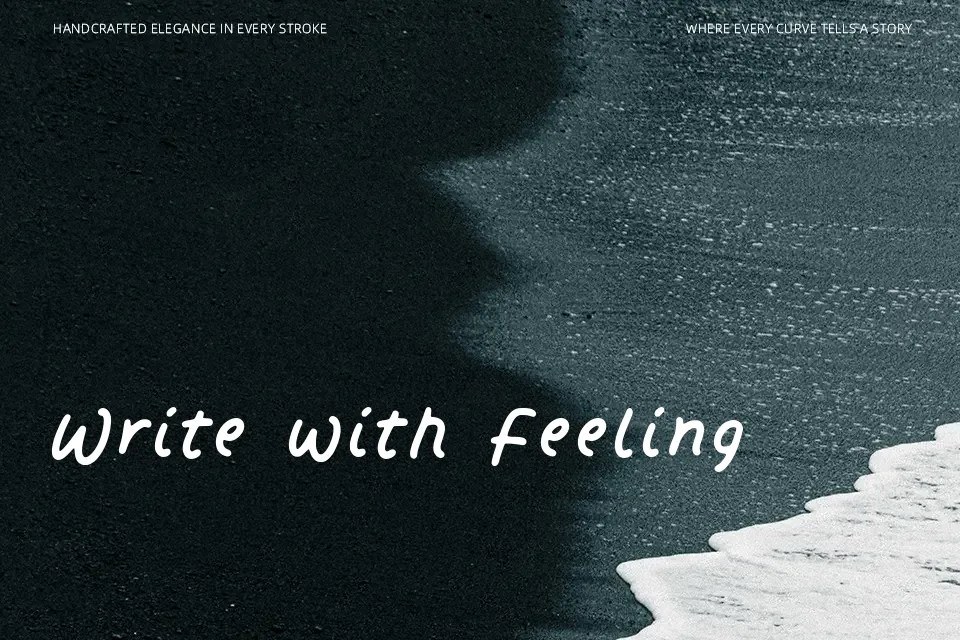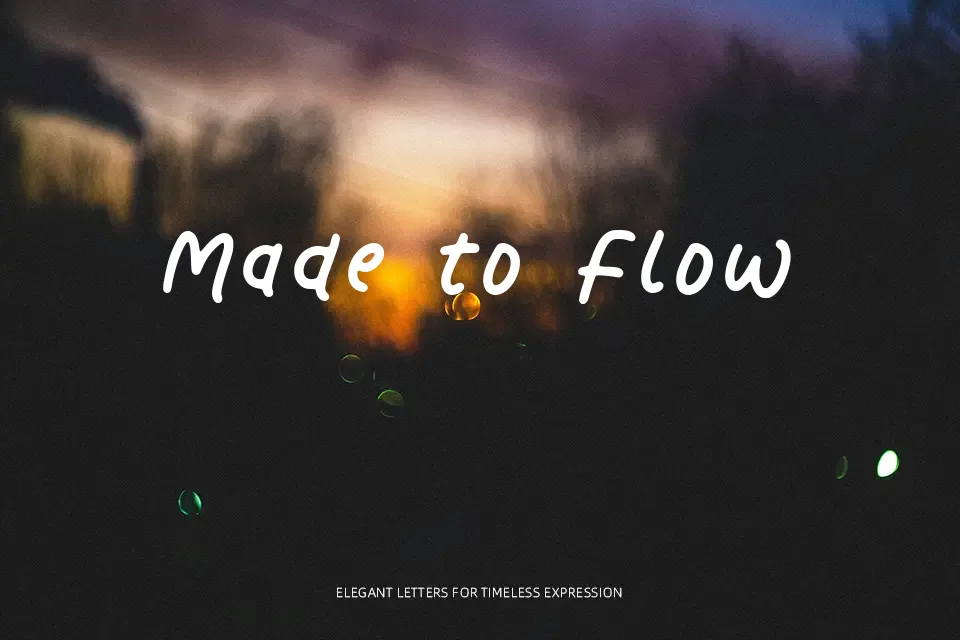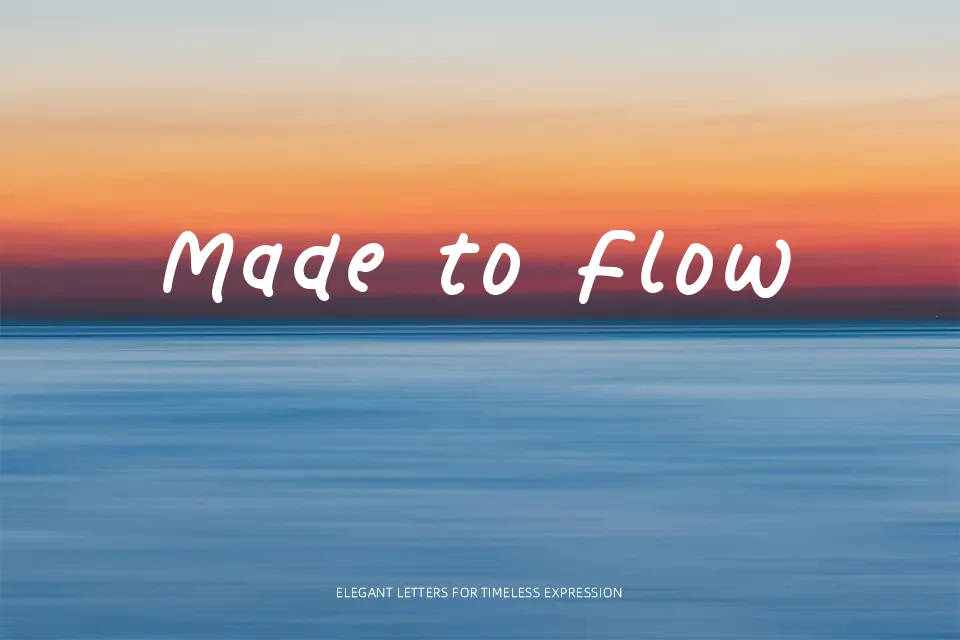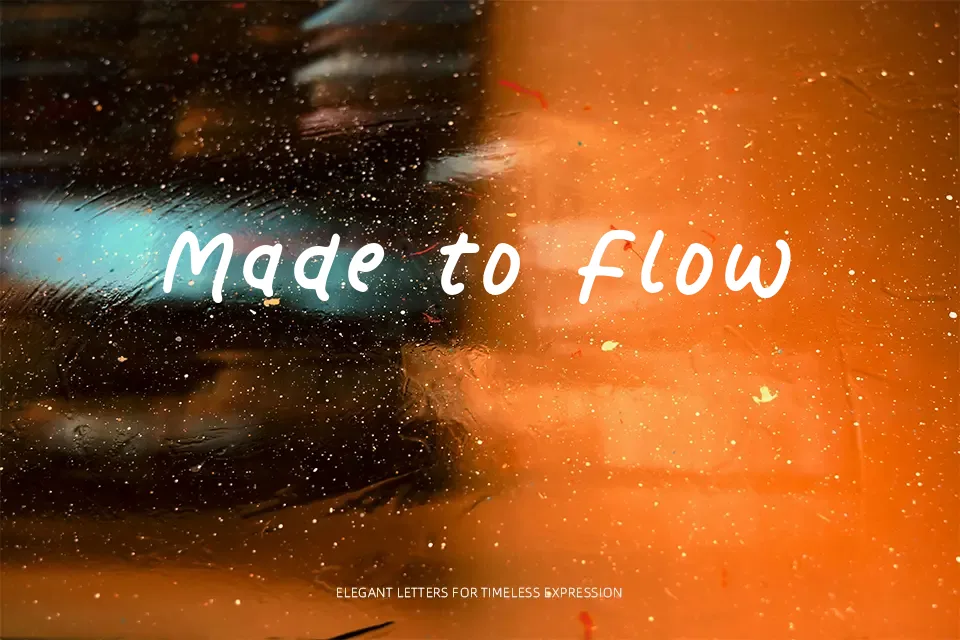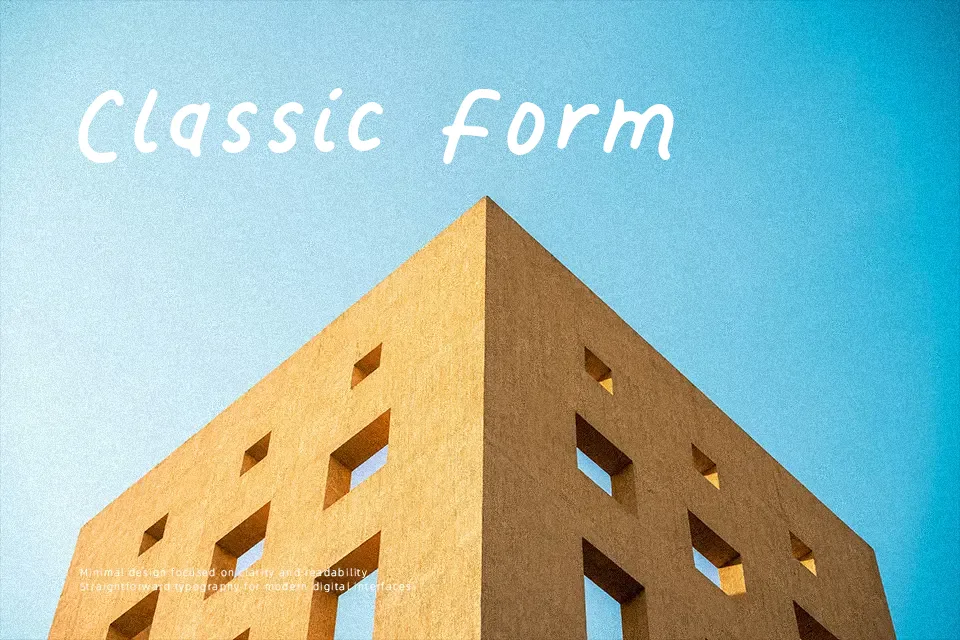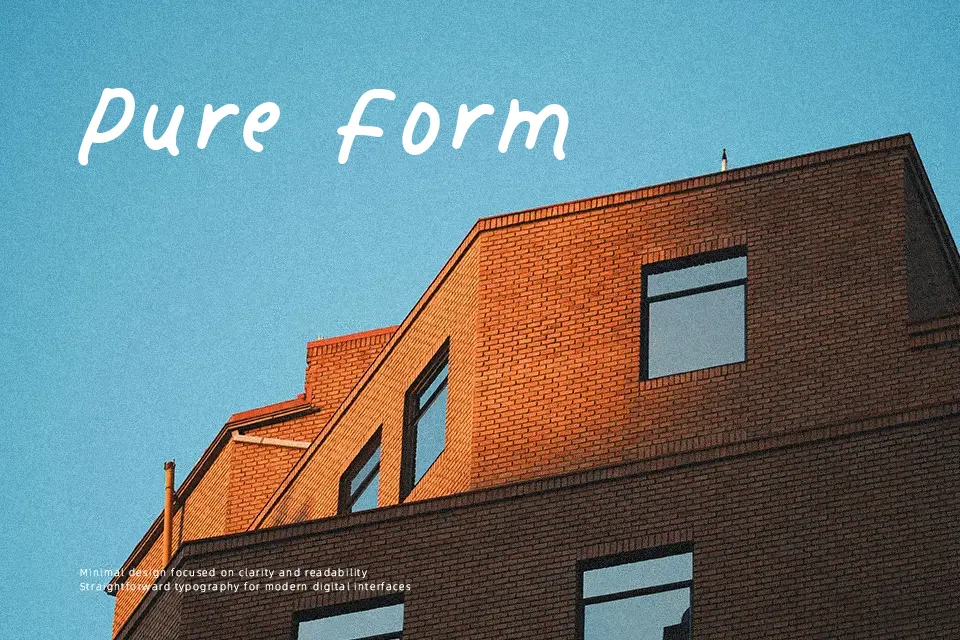
Bestfriend Font
There’s an easygoing looseness to Bestfriend’s letterforms — rounded, low-contrast strokes that lean slightly informal without tipping into sloppy. The spacing breathes well at display sizes, and the overall tone reads somewhere between a handwritten note and a crafted logo mark. It suits greeting card titles, quote graphics, and casual social posts where warmth matters more than authority. That said, the demo version distributed freely is restricted to personal use, so any revenue-generating project requires a paid license — something to factor in early. At small sizes or in dense body copy, legibility starts to falter; this is a headline personality, not a reading font. Think of it alongside other friendly display scripts: it shares DNA with informal brush lettering but feels softer and more pen-like.
Best For:- Greeting card and birthday post headers
– Casual lifestyle branding or stationery
– Social media quote graphics
– Personal blog visual accents
Not Ideal For:- Long-form body text or paragraph copy
– Corporate identity or formal business materials
– Small-size UI labels where legibility is critical
Perfect for branding, headline, and invitation, with a cute and display style.